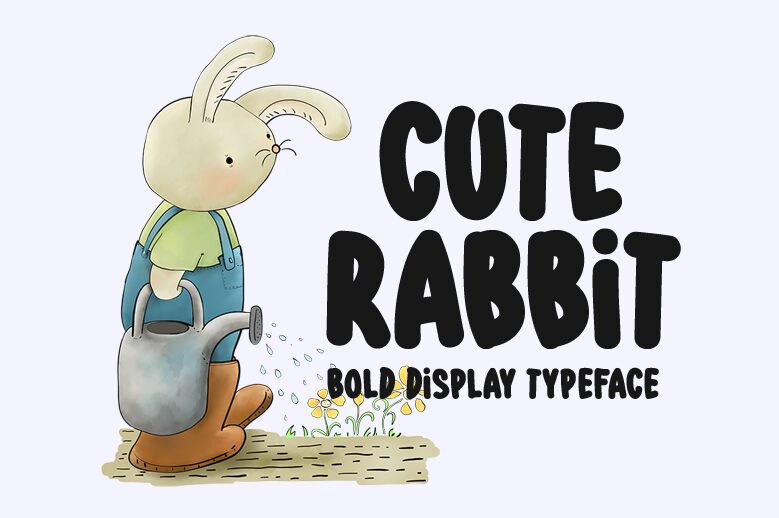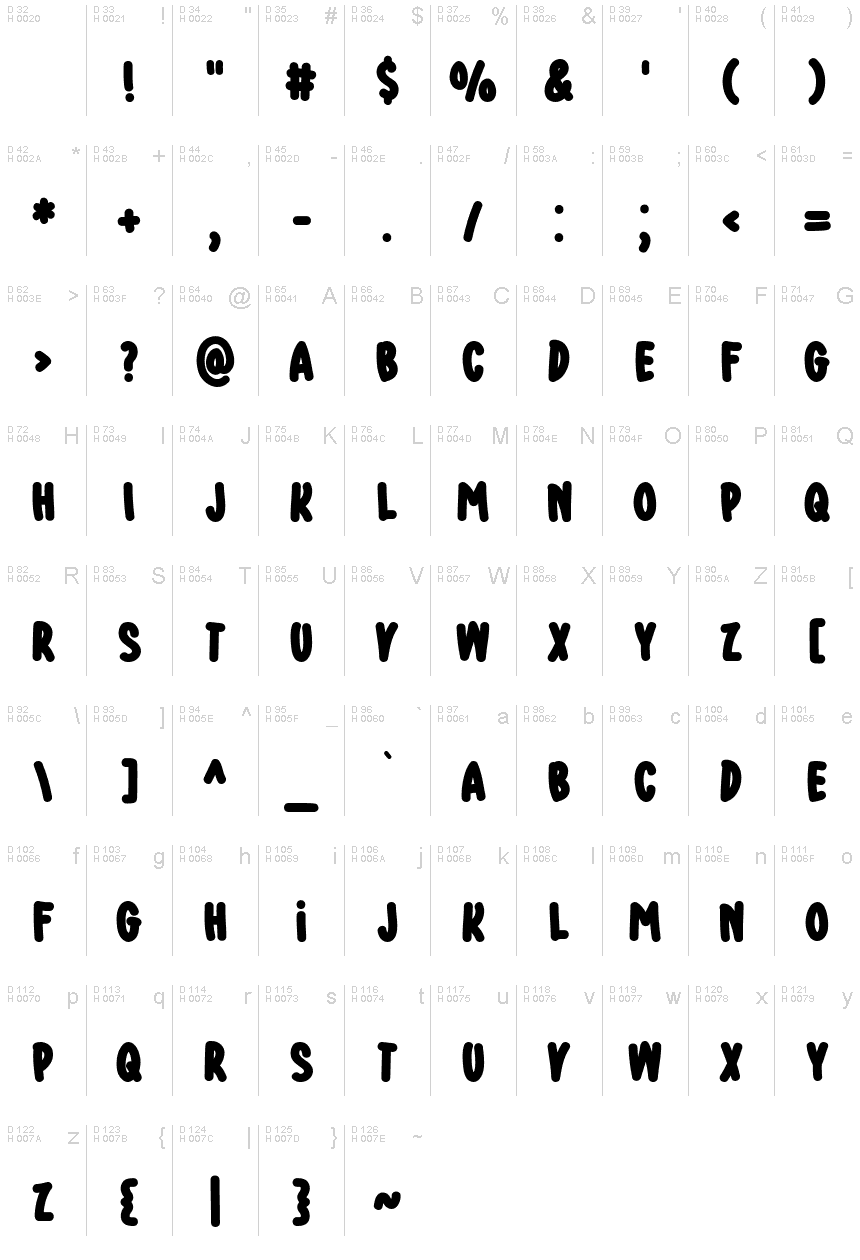
Cute Rabbit
Cute Rabbit, designed by Md Shohail Bhuian, is a playful and energetic display font with a bold weight and condensed width.
This adorable cartoon-inspired typeface is perfect for children's book covers, greeting cards, and nursery décor projects. Its whimsical style adds a touch of charm to party invitations and posters for themed events. With its unique personality, Cute Rabbit brings life to digital animations and video game interfaces.
Let this font hop into your designs and bring a dash of fun to any project that needs an extra dose of cuteness!